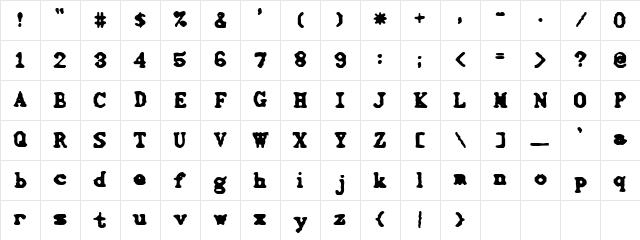
3000 Regular
Design Context for 3000
3000 is a composed and adaptable typeface that performs quietly and consistently across a wide range of design contexts.